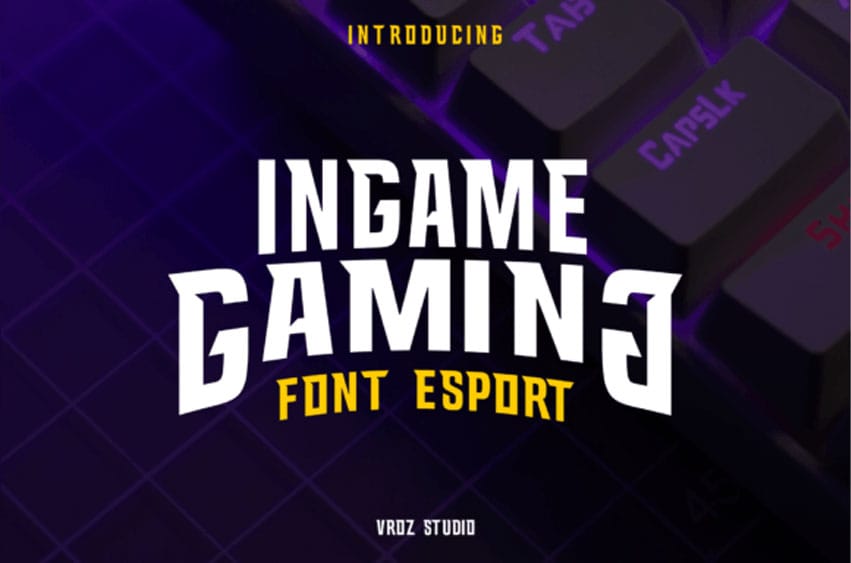
Ingame Font is a sport font. INGAME FONT brings you the kind of cheerful and sporty vibes that spreads the playful energy for the game.
Ingame font will be suitable to be associated with any kind of sports product such as name team, poster, jersey design, sport-slogan, and many more about sports or e-sport